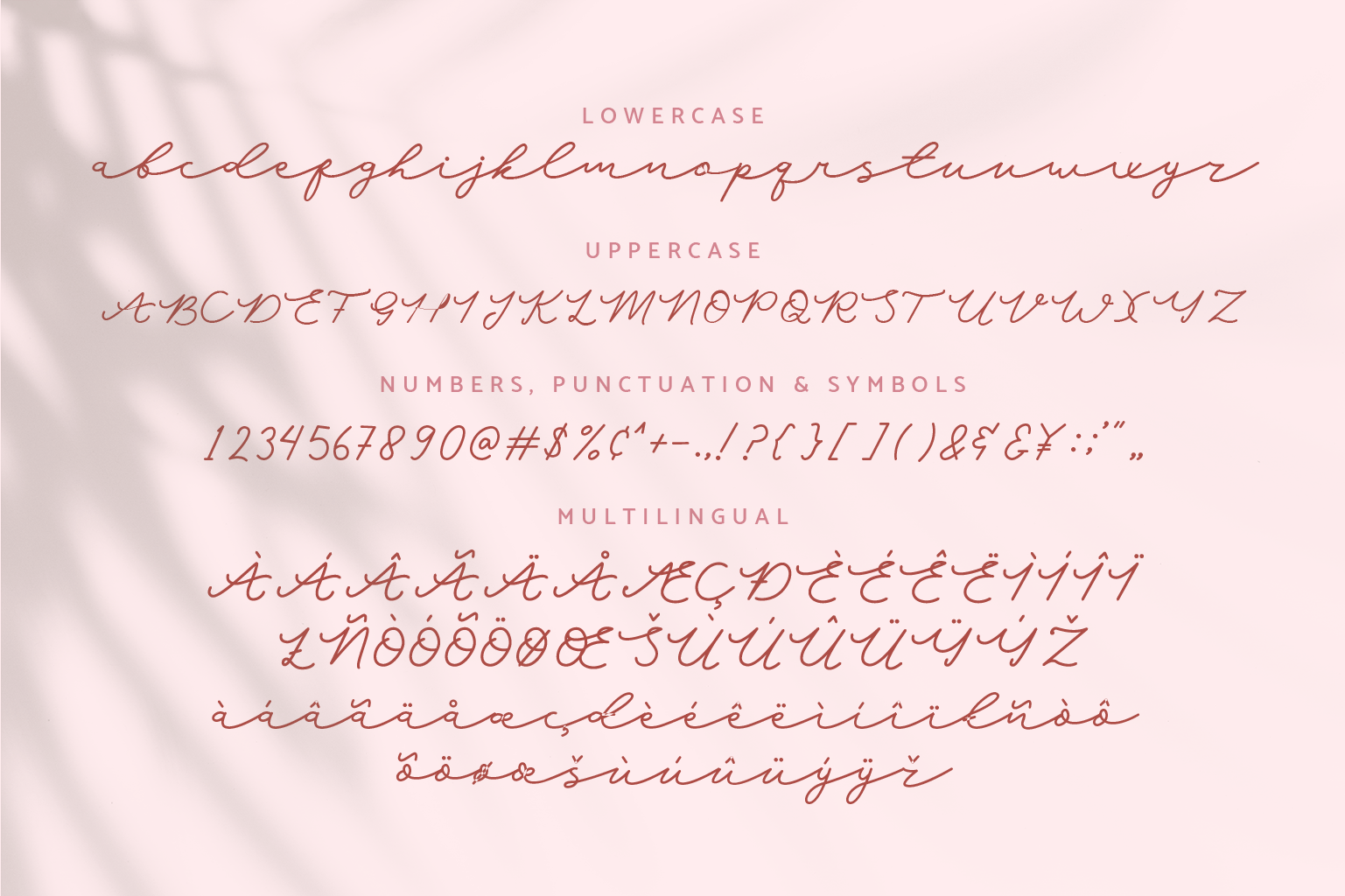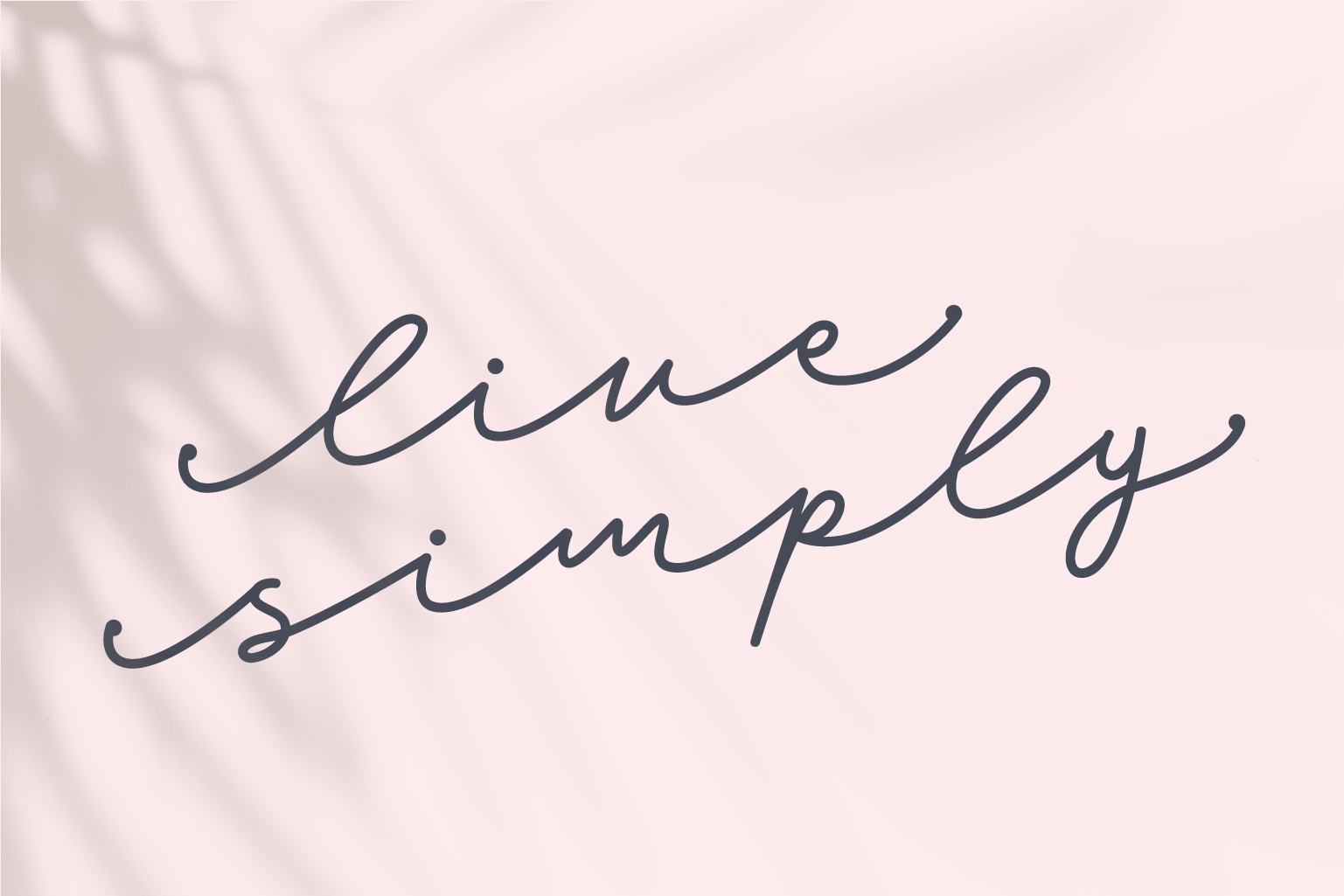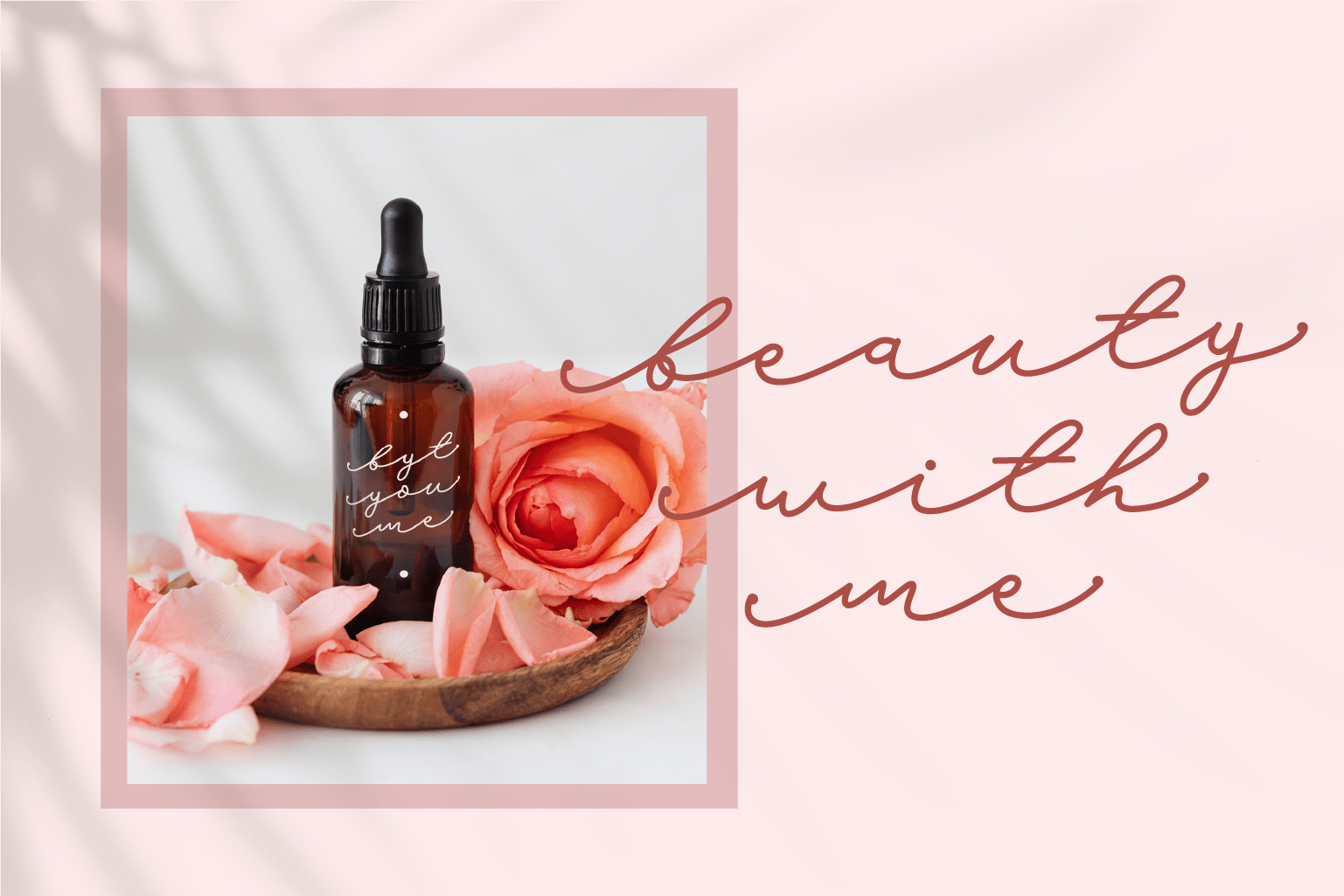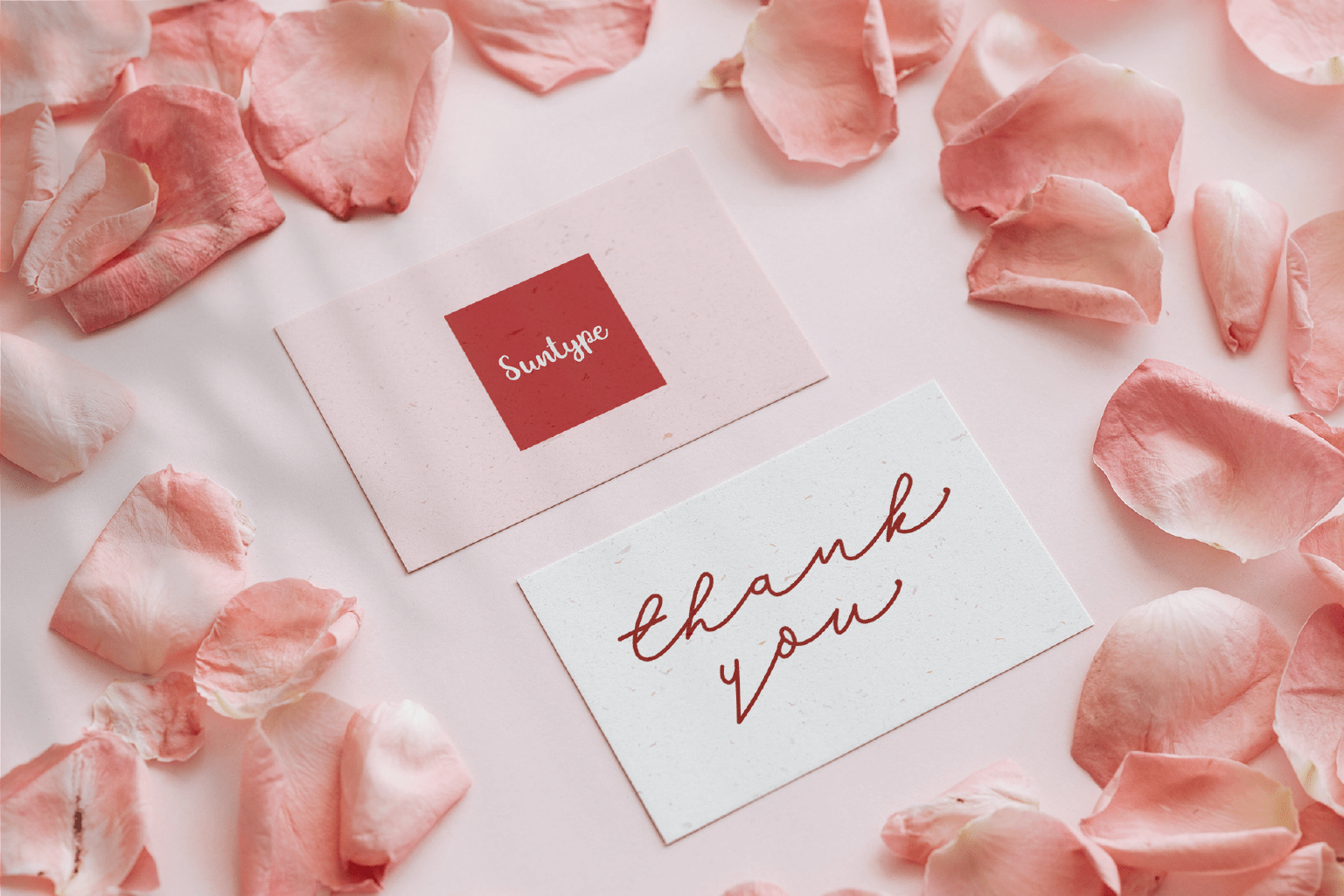
Hello Austen Font
Hello Austen Font is a beautiful and refined script font. It has a classy, elegant and modern look that can be used for logos, branding, invitations, stationery, wedding designs, social media posts, and much more!